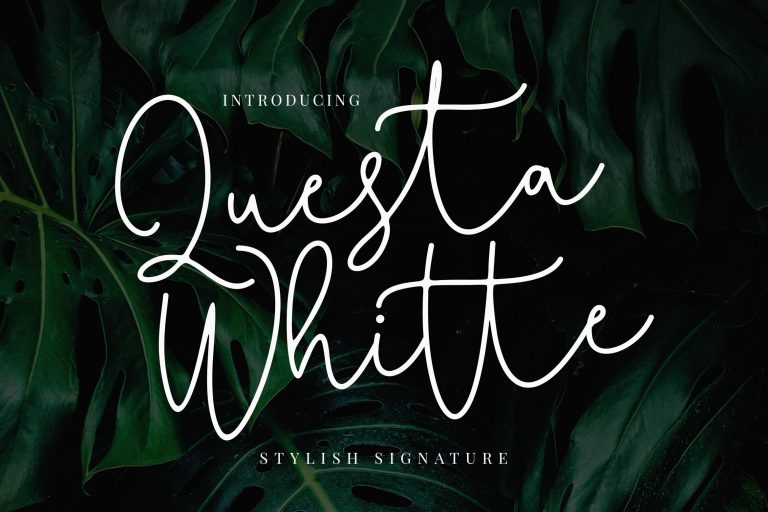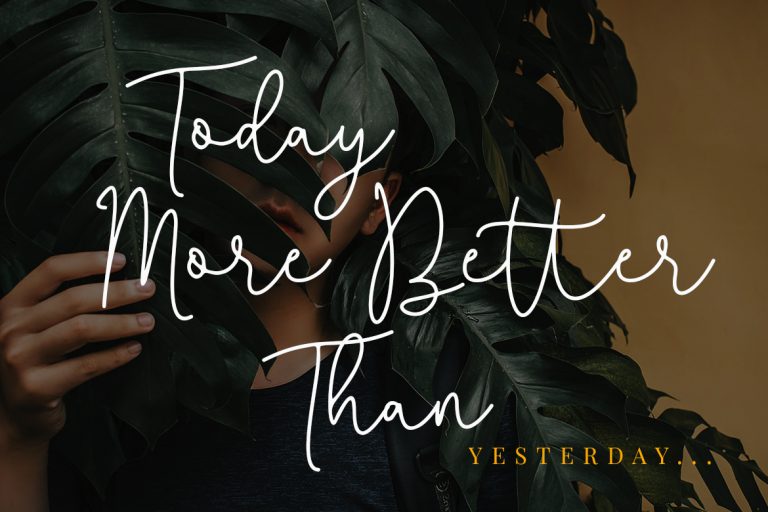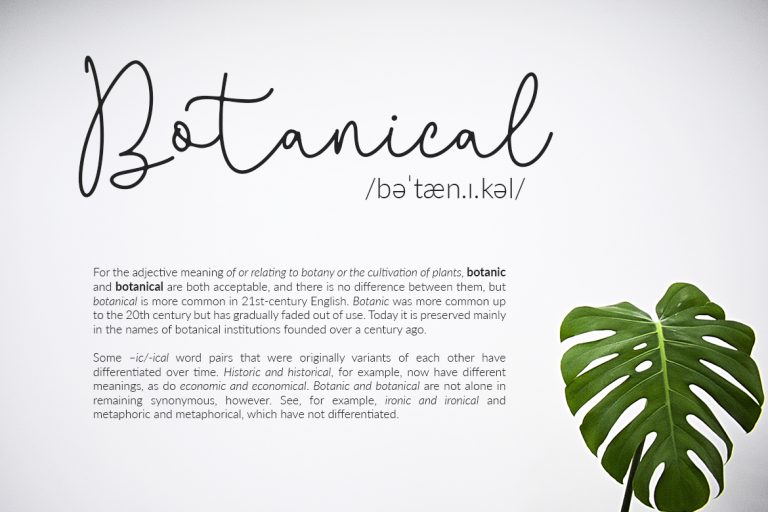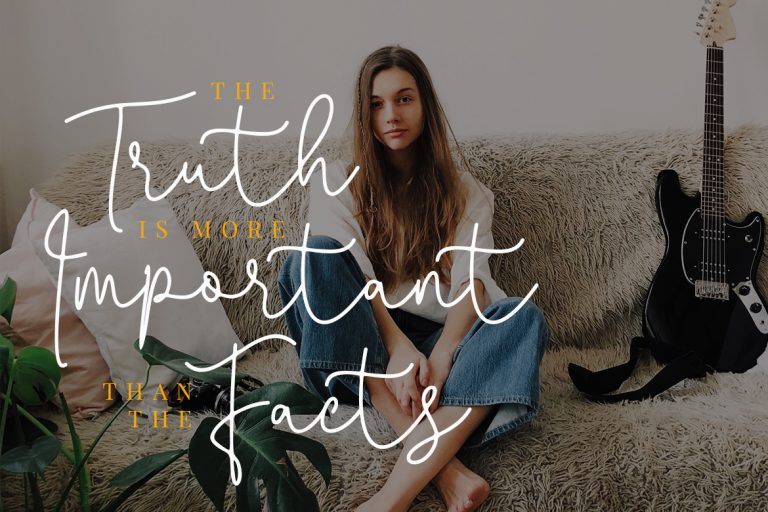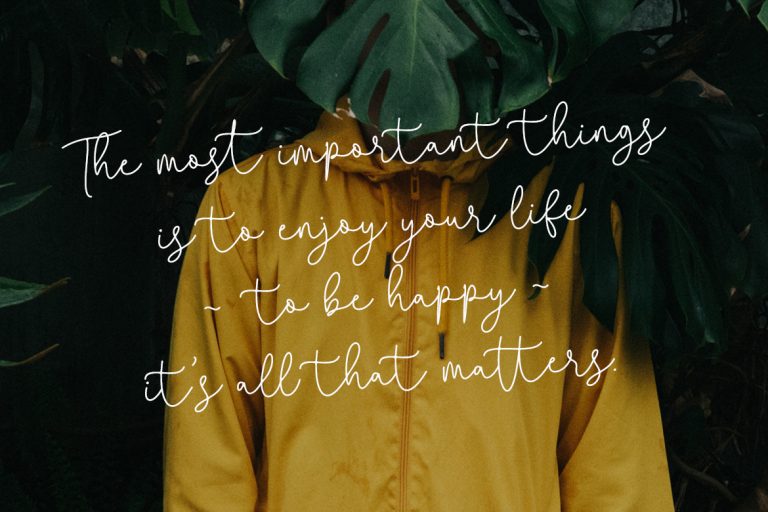
Questa Whitte Script
Questa Whitte is a hand written signature style script that gives it a quick and speedy pacing. Its handwritten look can really freshen up your projects.
Questa Whitte is perfect for branding projects, logo, wedding designs, social media posts, advertisements, product packaging, product designs, label, photography, watermark, invitation, stationery and any projects that need handwriting taste.
- Fonts include multilingual support for; ä ö ü Ä Ö Ü ß ¿ ¡